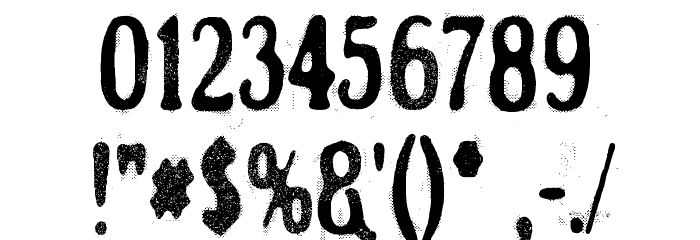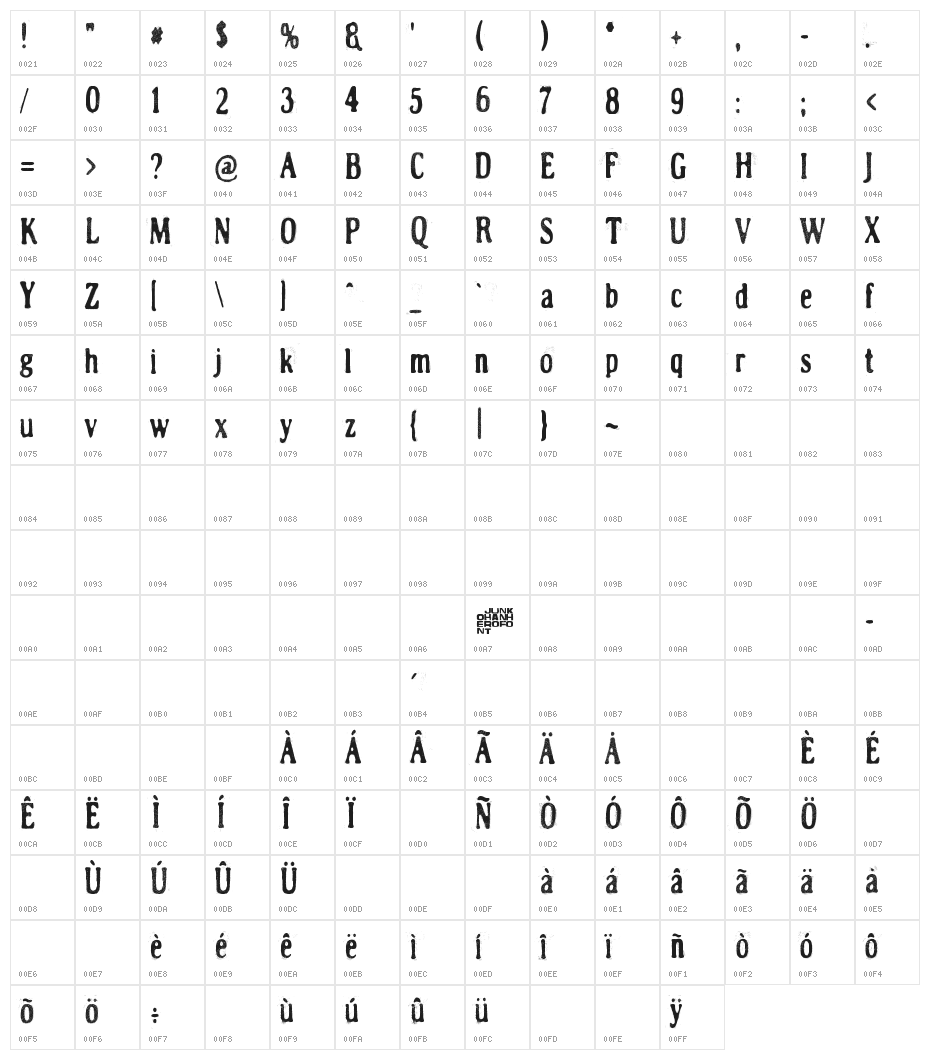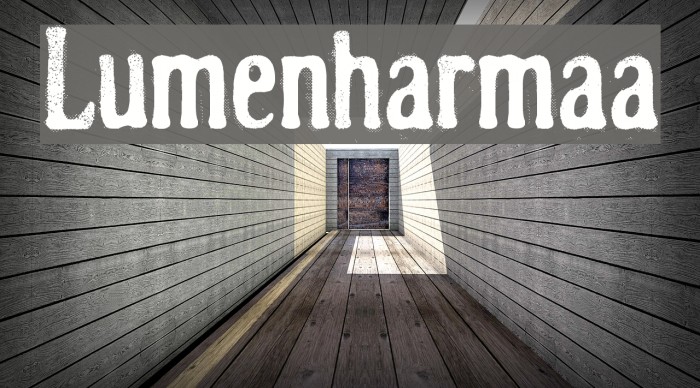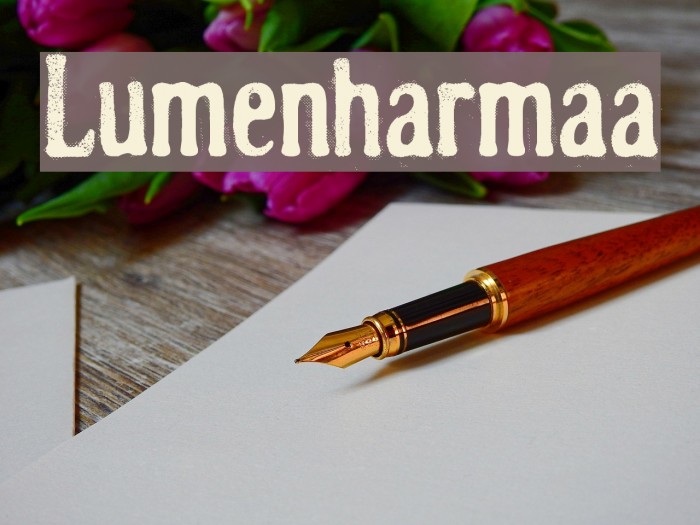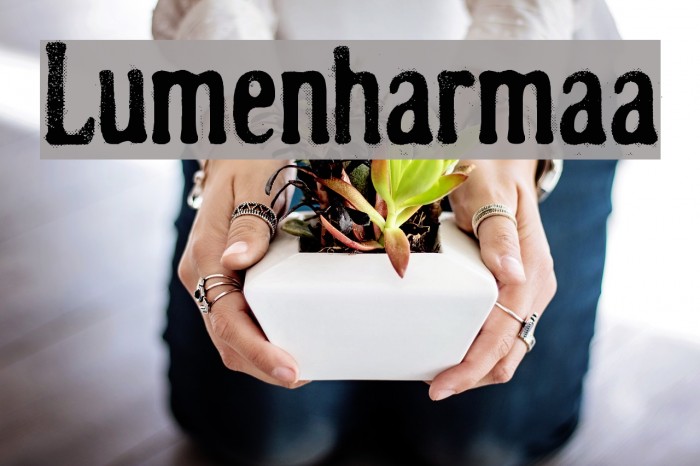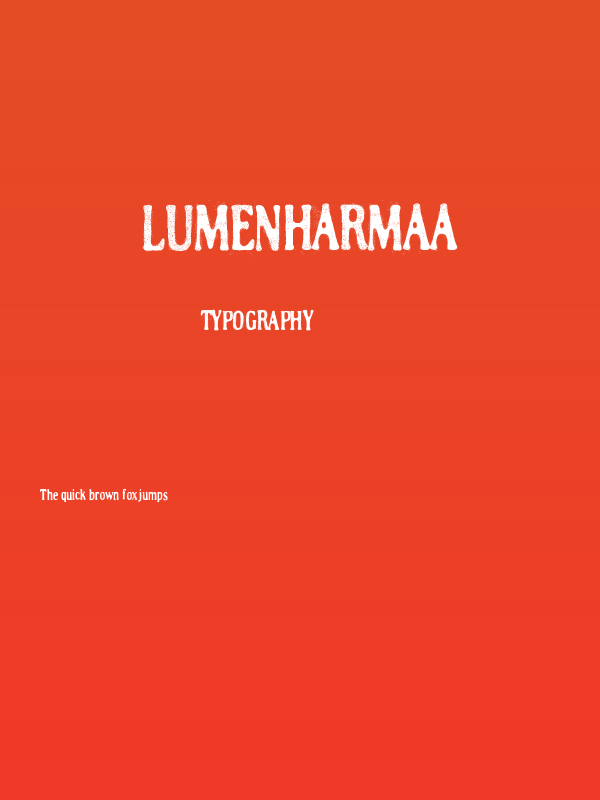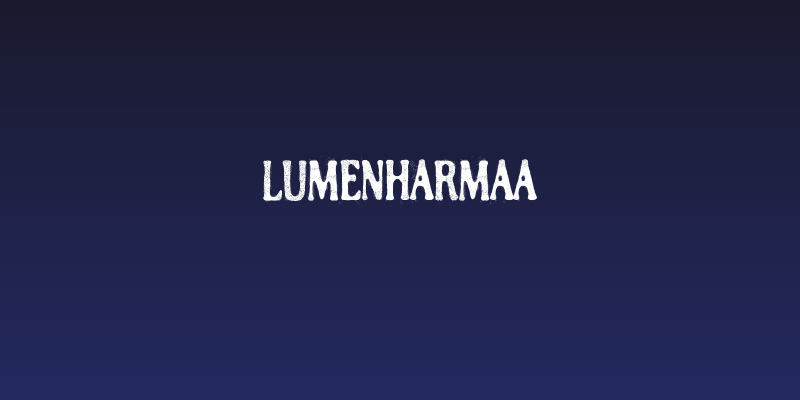
Lumenharmaa Font
Lumenharmaa Description
This font features a bold and textured appearance, reminiscent of vintage printing techniques. The letters are slightly distressed, giving them a rustic and handcrafted feel. The uppercase characters are robust and commanding, while the lowercase letters maintain a consistent style with a slightly narrower profile. The numerals are clear and bold, matching the overall aesthetic. Special characters are well-integrated, maintaining the font's unique style. This font's distinct texture and boldness make it stand out, suitable for projects that require a touch of vintage charm.
| Proposed Projects | Ideal for posters, branding, packaging, and any design needing a vintage or rustic touch. |